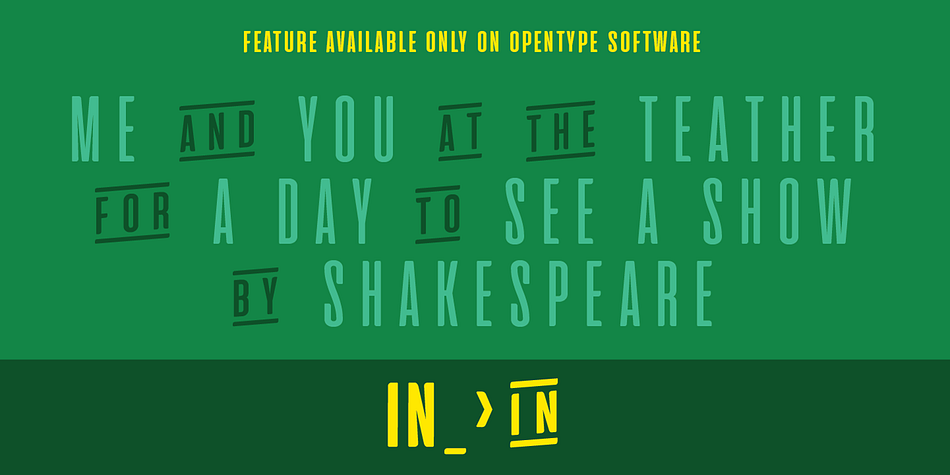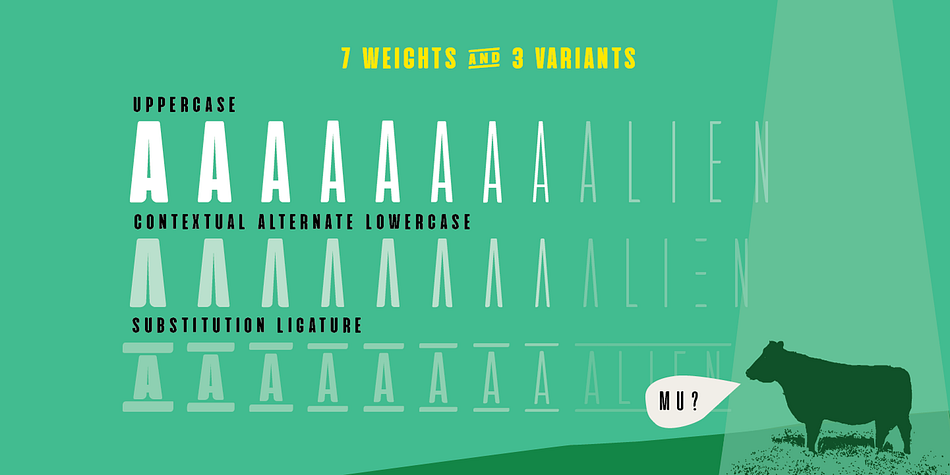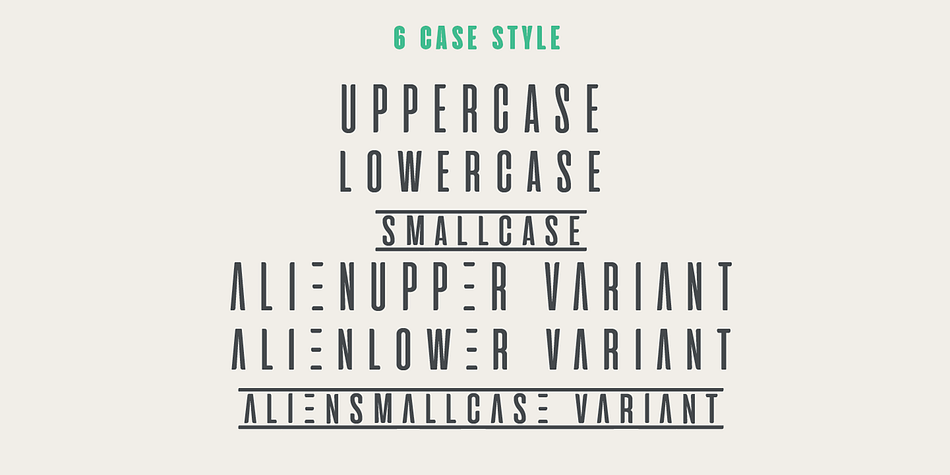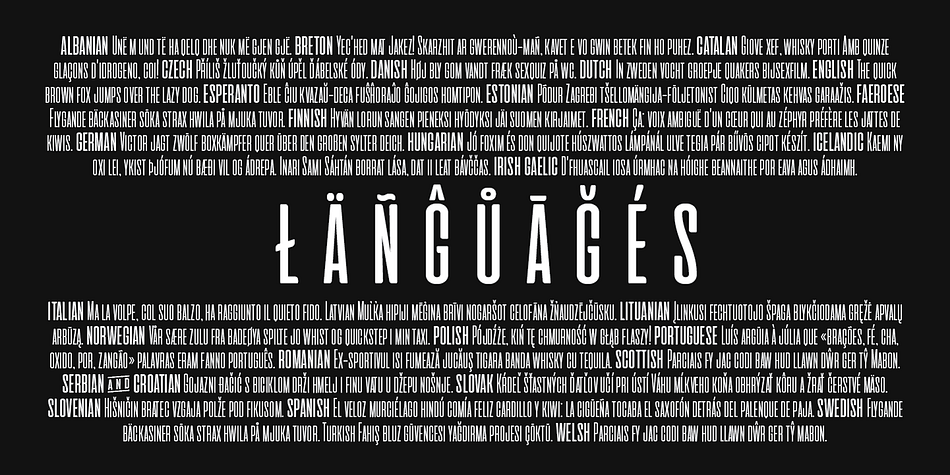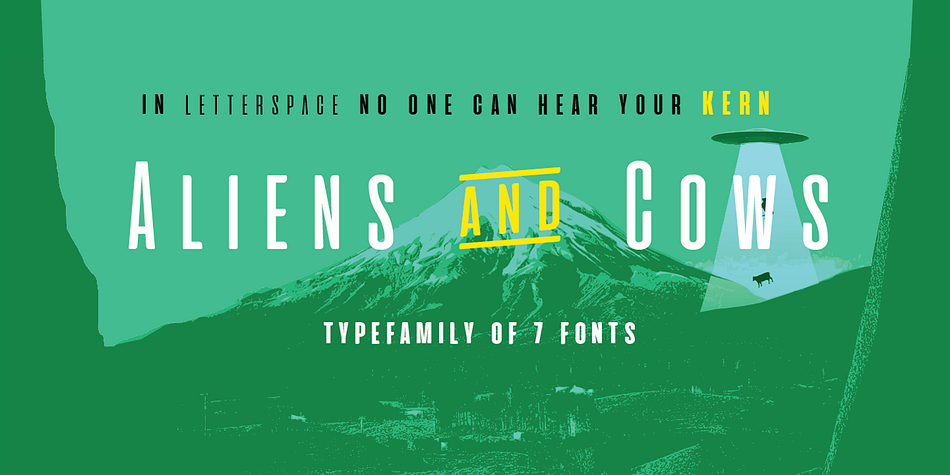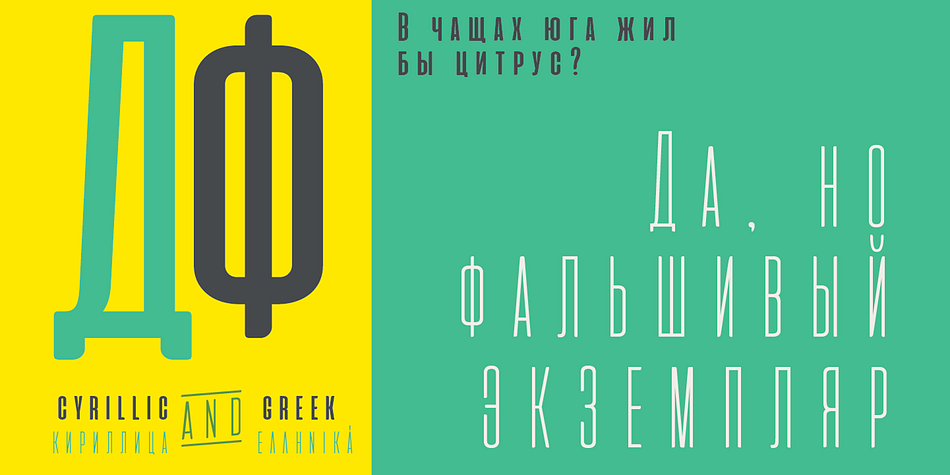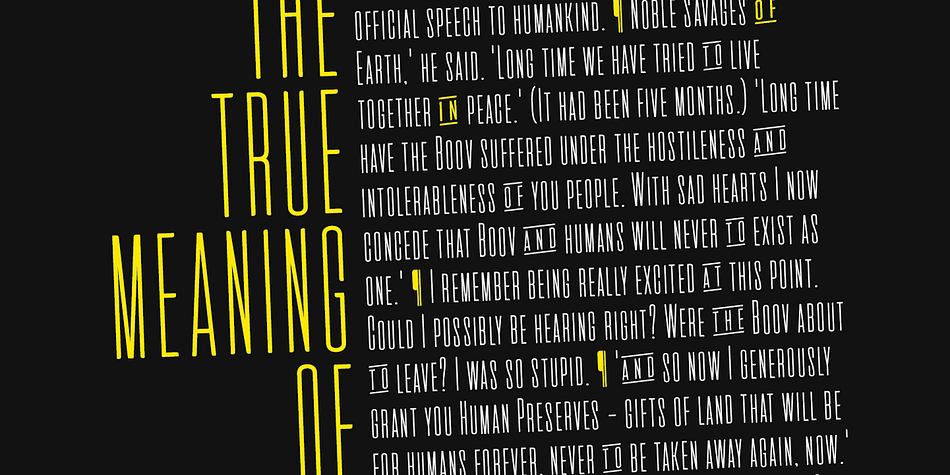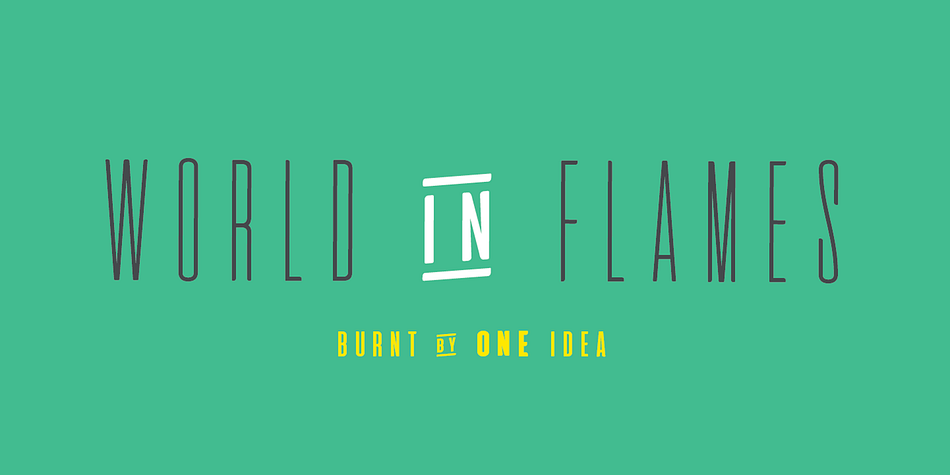
Designed by Francesco Canovaro, Aliens & Cows is a sans serif and display sans font family. This typeface has seven styles and was published by Zetafonts.
Aliens and Cows is an ultra condensed sans serif display typeface designed by Francesco Canovaro. Inspired by the title cards of 1980’s science fiction movies, it features thin letterforms with an ultra wide spacing - perfect for minimal logo design and editorial display use. It features sci-fi themed alternates as well a set of lined small caps and word ligatures and covers over forty languages using the Latin alphabet as well as Greek and Cyrillic.